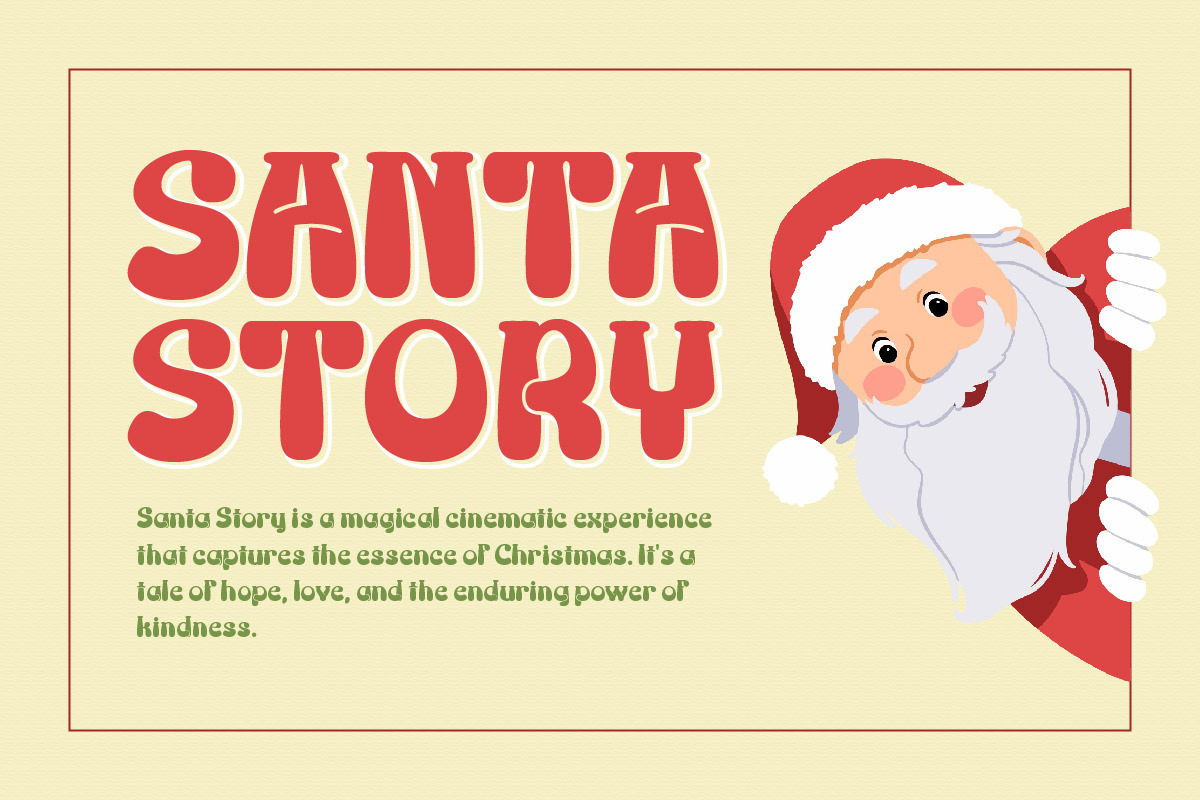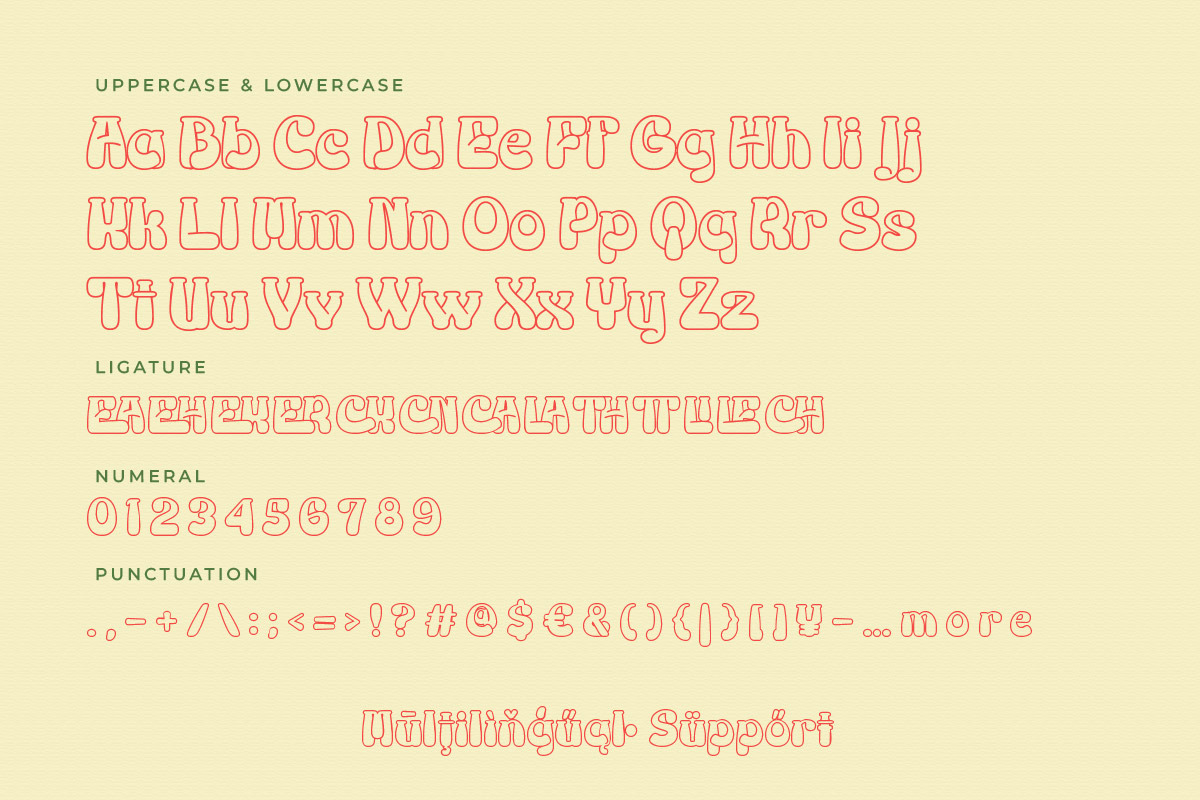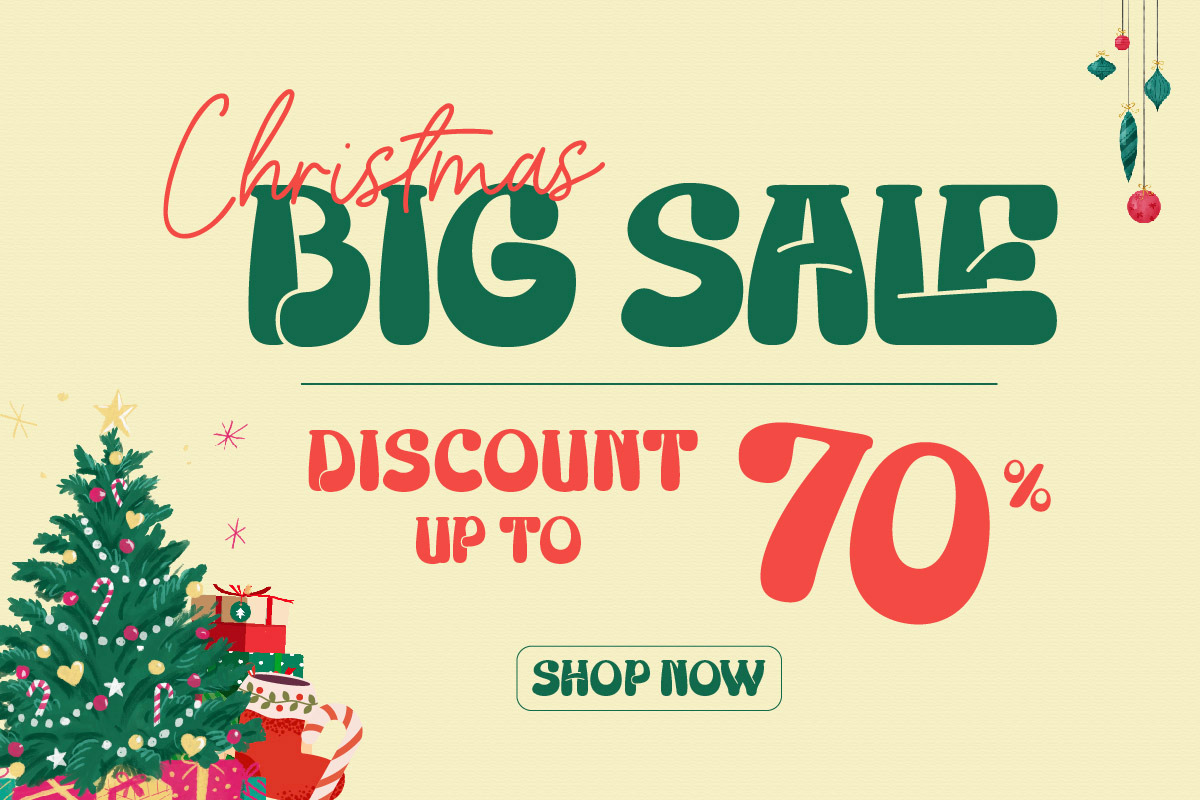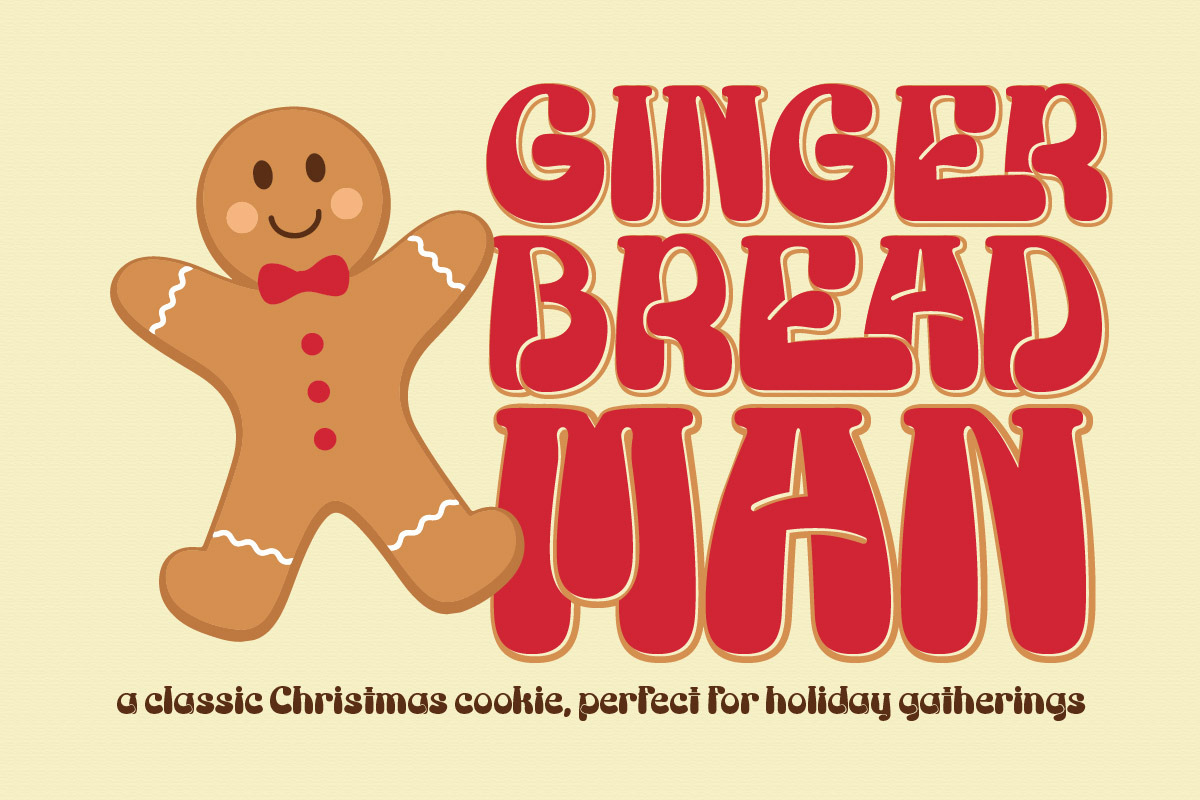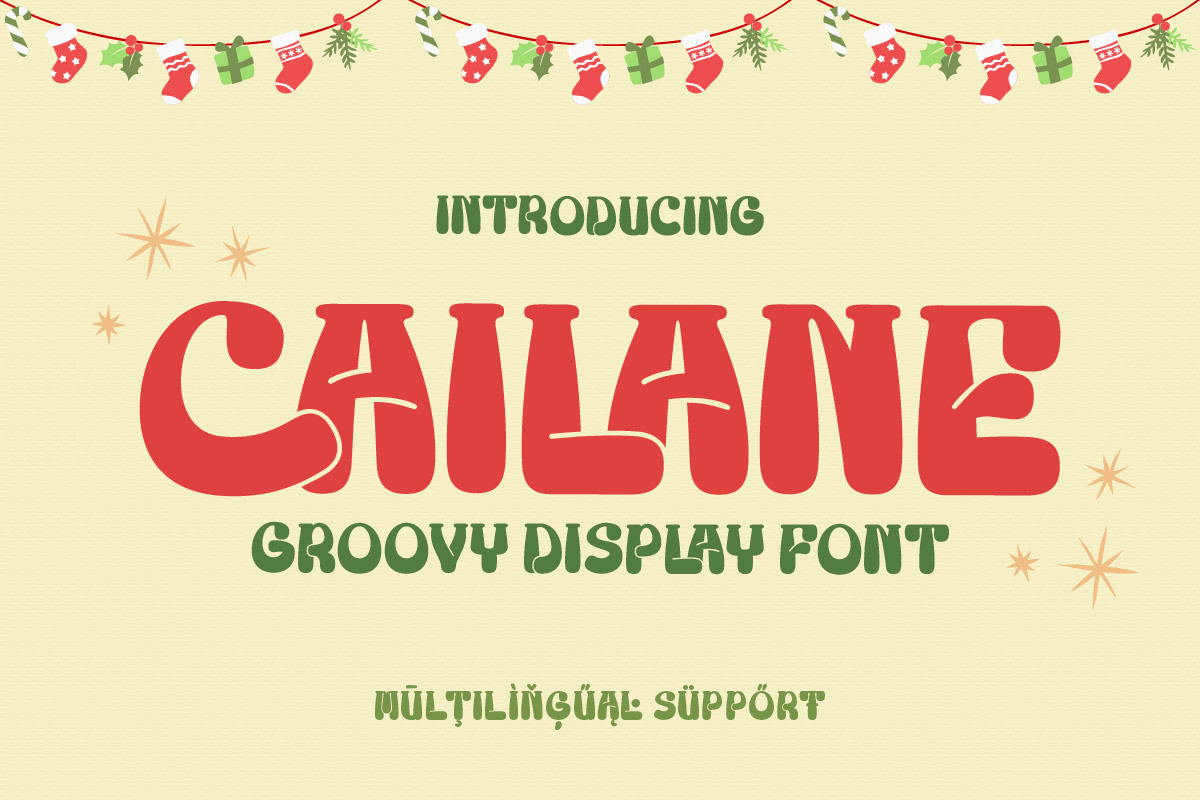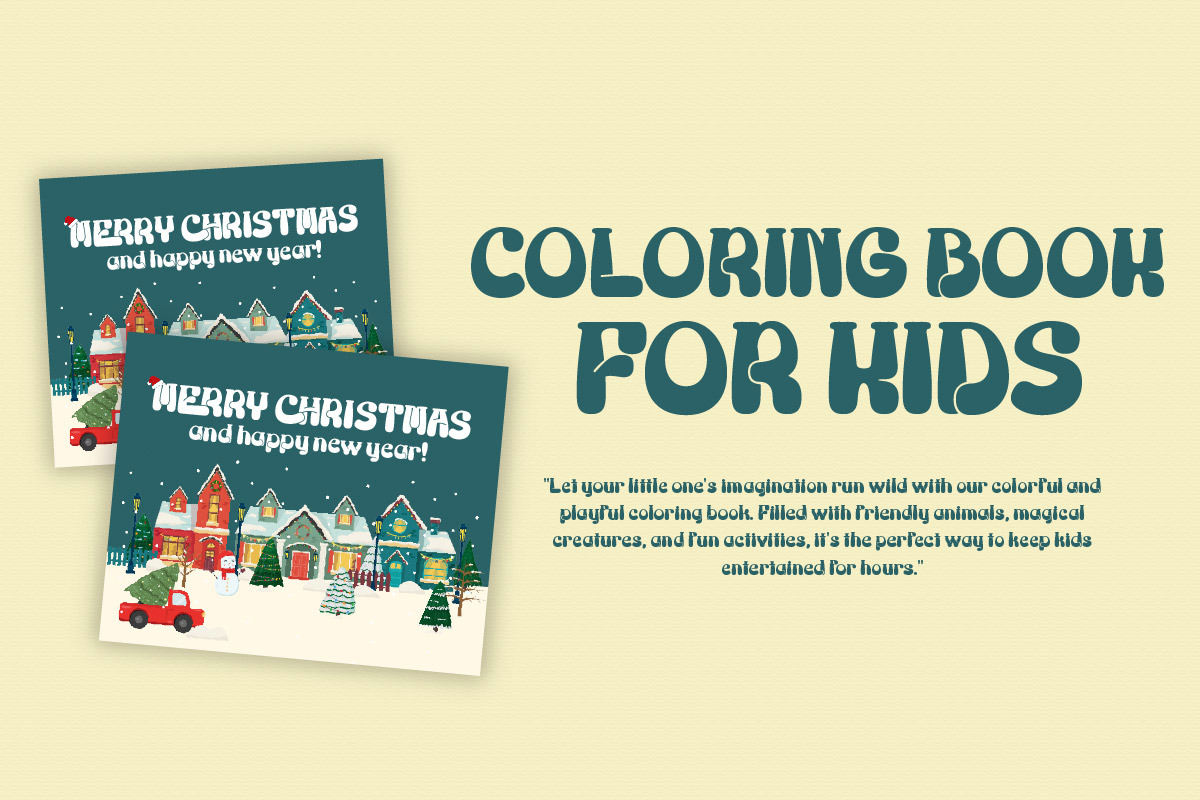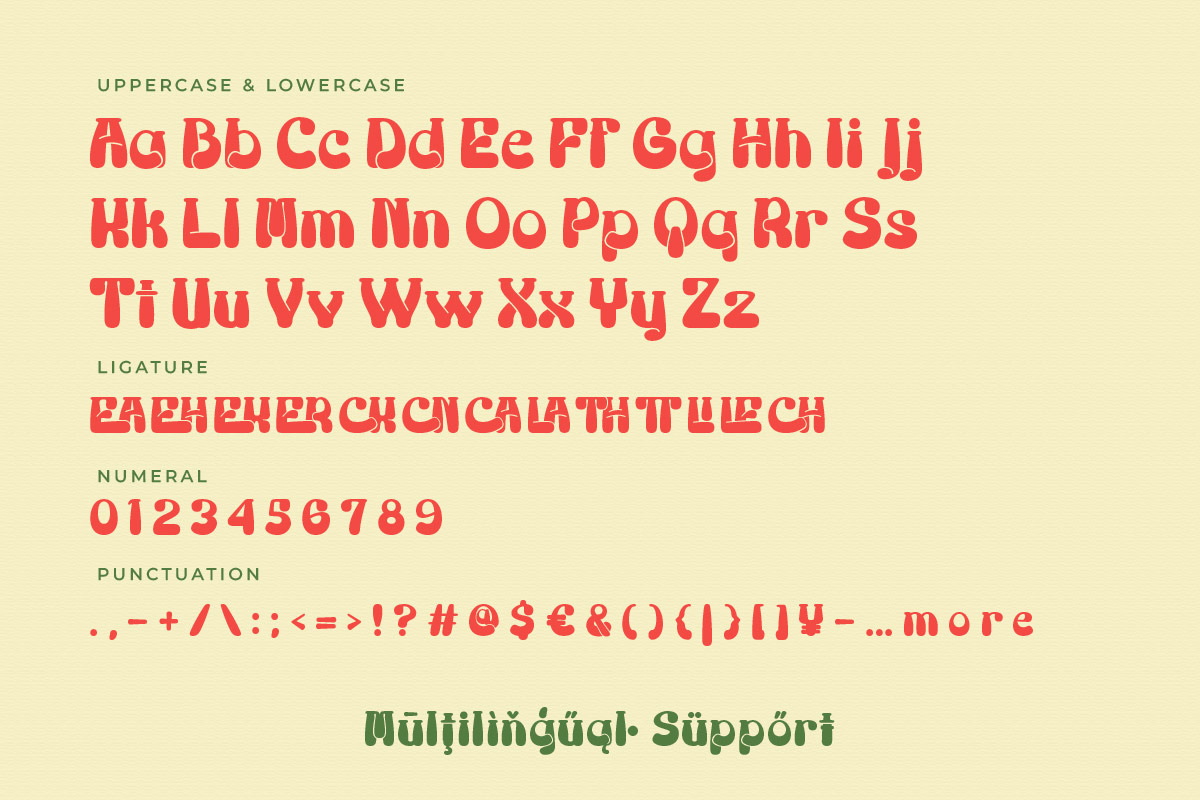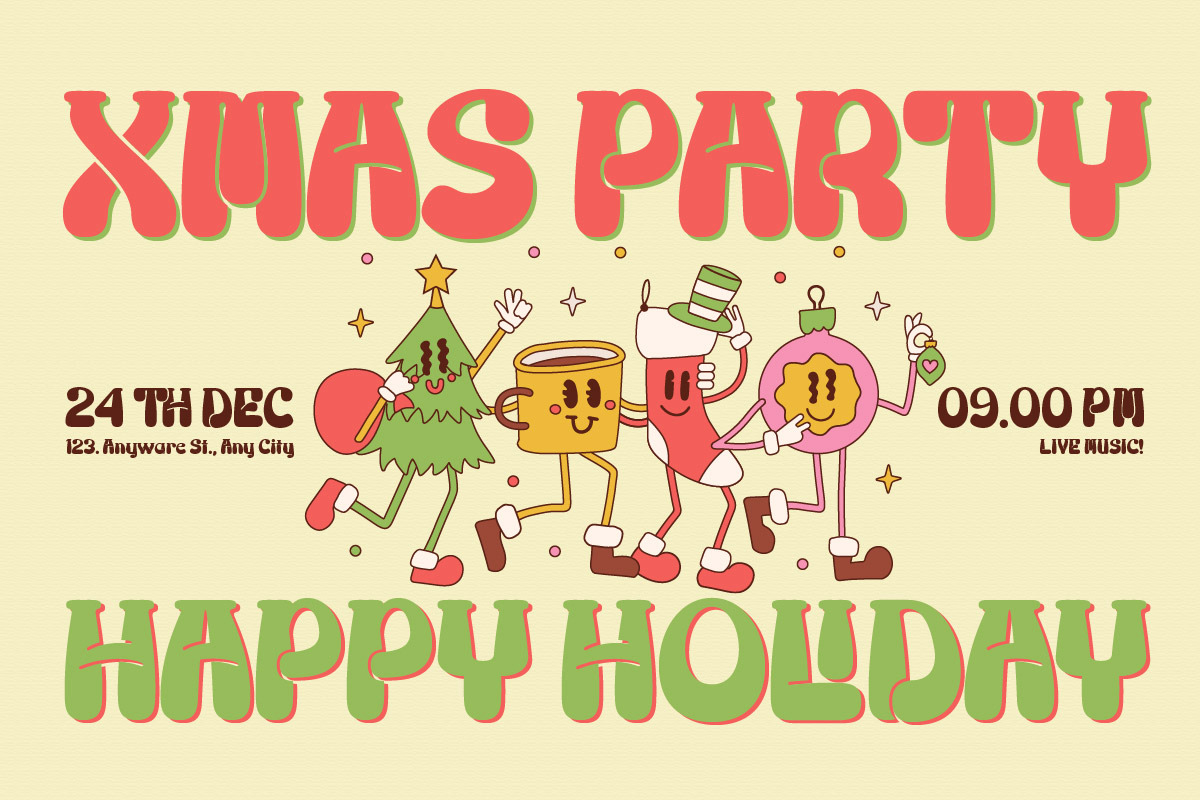
Cailane - Retro Groovy Display Font
Elevate your design projects with Cailane, a retro-inspired groovy display font. Perfect for branding, posters, packaging, and social media, it combines bold curves with vintage charm to create an eye-catching and unique visual identity.
- Fonts include Multilingual support.